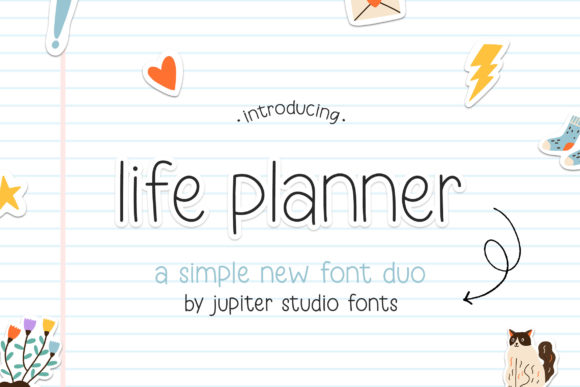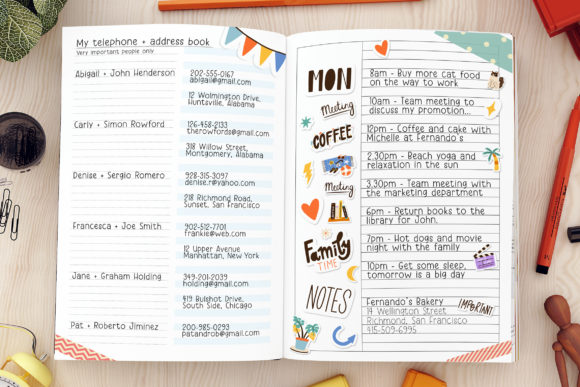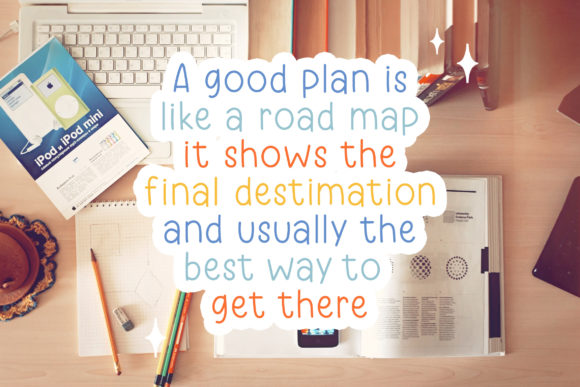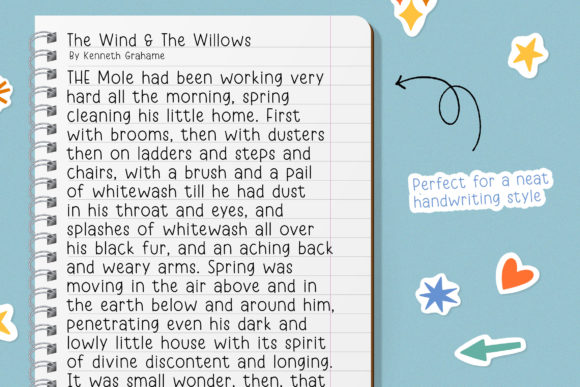
Life Planner Duo Font
About the Life Planner Duo Font
Presenting Life Planner Duo Font, a unique and stylish typeface that will make your work stand out. Life Planner Duo is a minimal and neat sans serif font. It can easily be matched to an incredibly large set of projects, so add it to your creative ideas and notice how it makes them stand out!
Its clean lines and minimalist aesthetic make Life Planner Duo ideal for headlines, branding elements such as logos and short taglines, and packaging design where clarity is key. It also works well in infographics and short-form content requiring high readability. However, its limited character set and thin strokes make it less suitable for body text, long paragraphs, or UI elements requiring extensive text.
The font projects a modern, friendly, and efficient personality. To complement this, consider pairing Life Planner Duo with a classic serif like Garamond for a sophisticated contrast or a geometric sans-serif like Futura for a consistent modern feel. A playful script font like Pacifico could add a touch of personality to certain applications.
For a more serious application, pairing it with a neutral sans-serif like Lato will provide balance and enhance readability in supporting text where needed. Avoid pairing it with overly decorative or highly stylized fonts which would clash with its minimalist nature.
Life Planner Duo Font Usage Examples
Life Planner Duo Font Example